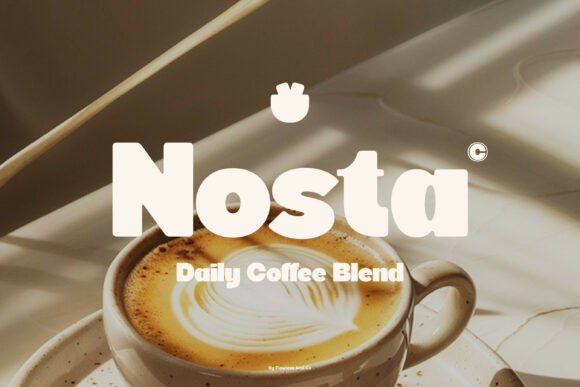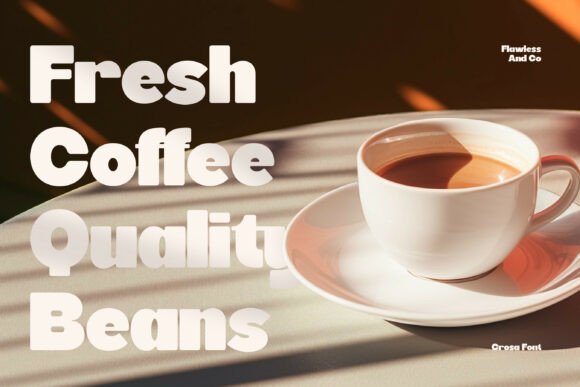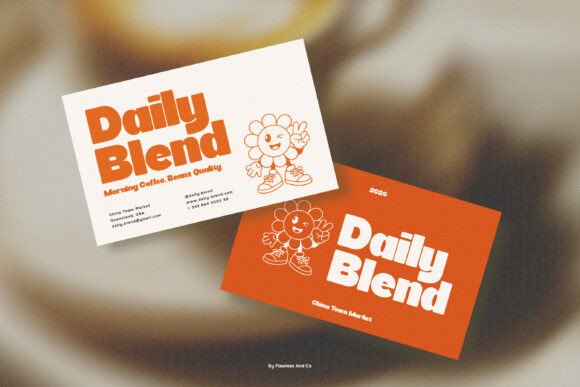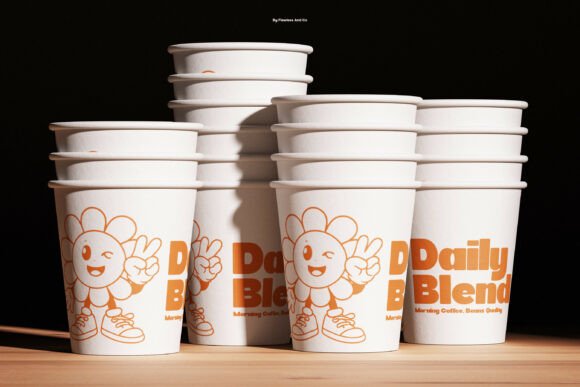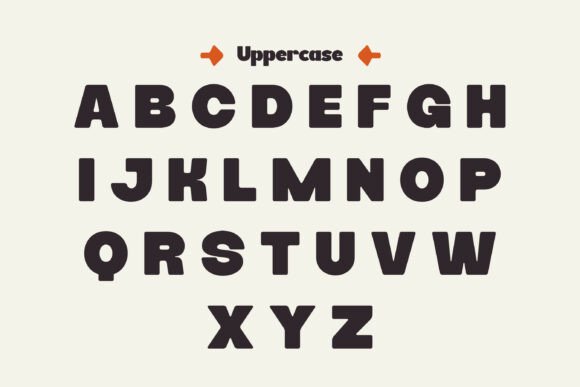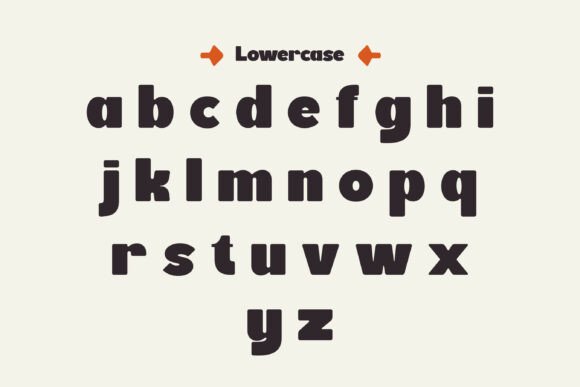
Introducing Crosa Font: The Ultimate Bold Display Font for Fun and Energetic Designs
Are you tired of using the same old fonts in your designs? Look no further than Crosa Font, a unique and cheerful bold display font that’s sure to bring fun, energy, and personality into your typography. With its bold letterforms, playful shapes, and lively character, Crosa creates an eye-catching visual style that instantly stands out from the crowd.
The Perfect Font for Friendly and Vibrant Designs
Crosa Font is designed to make a statement. Its strong structure combined with creative and expressive details makes it both impactful and enjoyable to read. The font’s cheerful appearance makes it perfect for designs that aim to feel friendly, vibrant, and full of life. Whether you’re working on a project for a children’s brand, a summer festival, or a trendy cafe, Crosa Font is the perfect choice.
Key Features of Crosa Font
- Bold and Playful Letterforms: Crosa Font features bold and playful letterforms that are sure to grab attention. Each letter is carefully crafted to create a lively and energetic feel.
- Strong Structure: Despite its playful nature, Crosa Font has a strong structure that makes it easy to read and understand.
- Creative and Expressive Details: The font features creative and expressive details that add to its playful and cheerful appearance.
- Multilingual Support: Crosa Font supports multiple languages, making it a great choice for global brands and projects.
Why Choose Crosa Font?
So why choose Crosa Font over other bold display fonts? Here are just a few reasons:
- Uniqueness: Crosa Font is a unique and original font that’s sure to set your designs apart from the crowd.
- Versatility: The font is versatile and can be used in a variety of design projects, from posters and flyers to logos and branding.
- High-Quality Design: The font is designed to high-quality standards, ensuring that it looks great in any design.
How to Use Crosa Font in Your Designs
Using Crosa Font in your designs is easy. Here are a few tips to get you started:
- Use it as a Title Font: Crosa Font is perfect for use as a title font in posters, flyers, and other designs.
- Add it to Your Logo: The font can be used to create a fun and playful logo that’s sure to grab attention.
- Use it in Social Media Graphics: Crosa Font is a great choice for social media graphics, such as Facebook posts and Instagram stories.
In conclusion, Crosa Font is a unique and cheerful bold display font that’s perfect for designers and crafters looking to add fun, energy, and personality into their typography. With its bold letterforms, playful shapes, and lively character, Crosa creates an eye-catching visual style that instantly stands out. Whether you’re working on a project for a children’s brand or a trendy cafe, Crosa Font is the perfect choice.